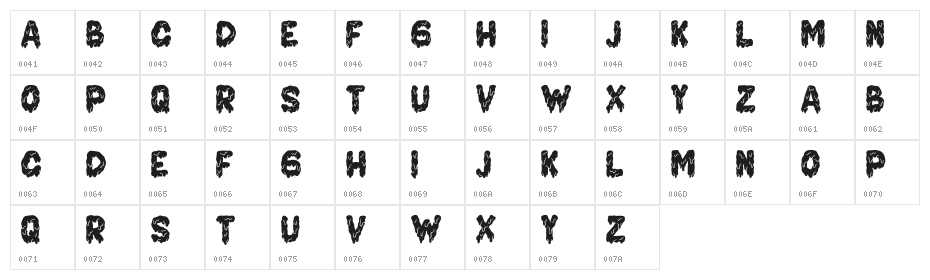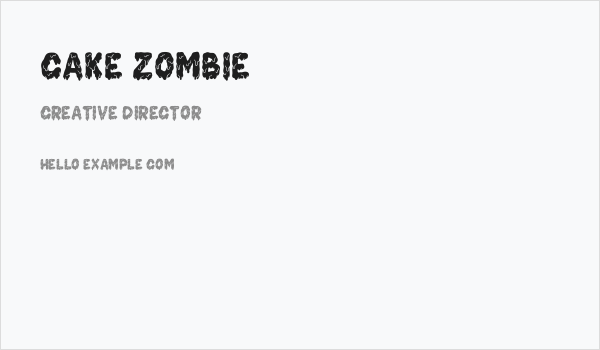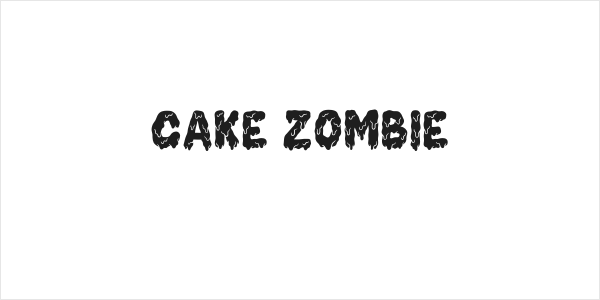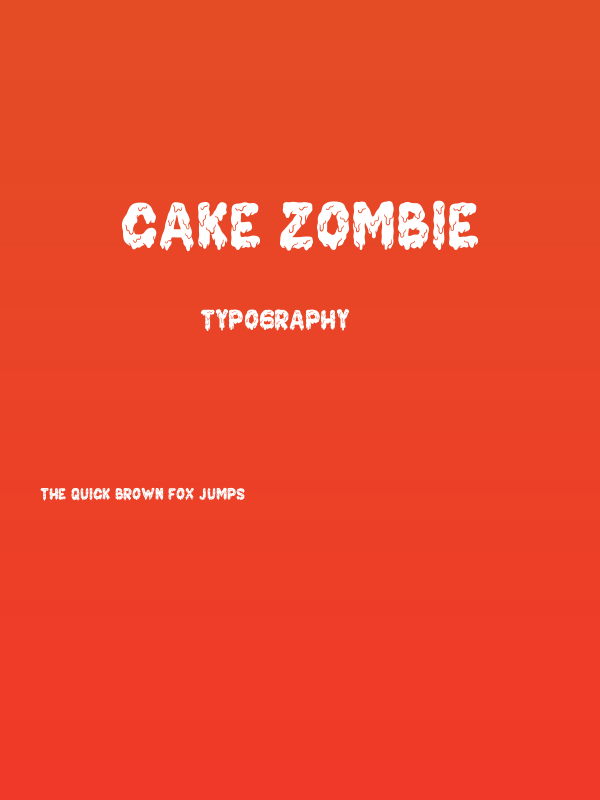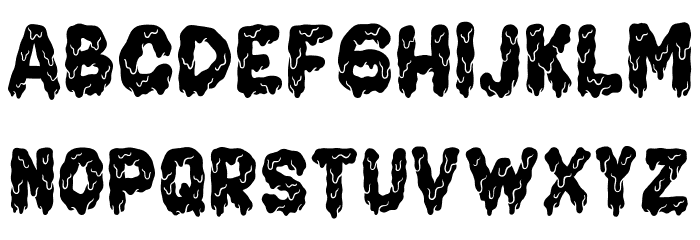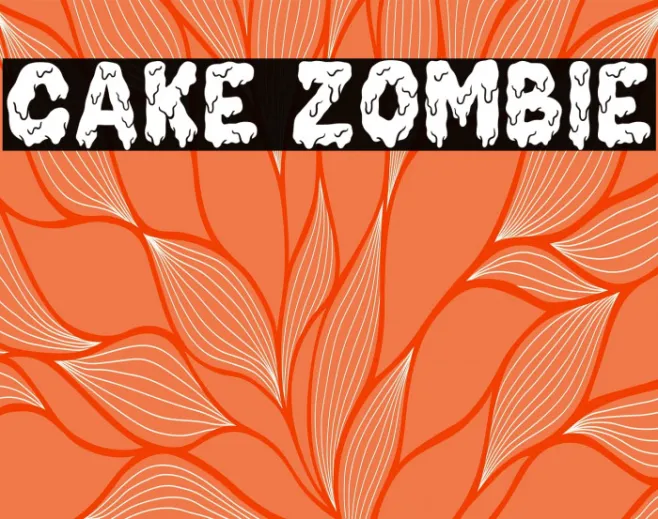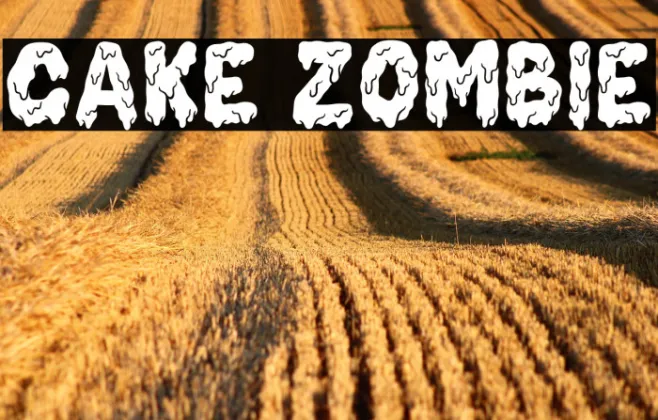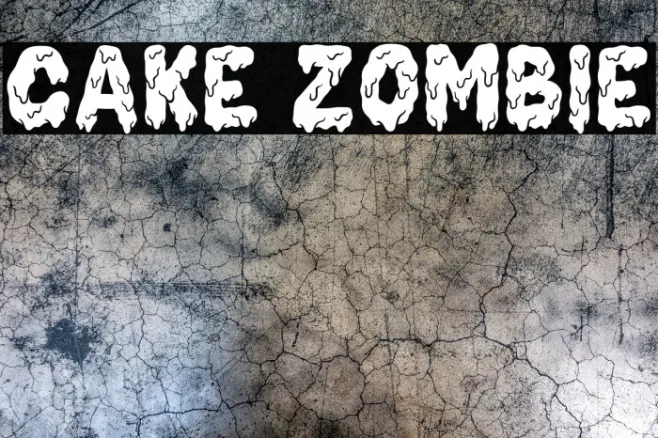
Cake Zombie Font
Cake Zombie Description
This font features a bold, dripping design that evokes a sense of horror and playfulness. Each character appears as if it is melting or oozing, creating a dynamic and eye-catching effect. The bold strokes and irregular edges contribute to its distinctive appearance, making it ideal for themes related to Halloween, horror, or anything requiring a spooky aesthetic. The uppercase letters maintain a consistent height, while the overall style is both decorative and thematic, perfect for capturing attention in creative projects.